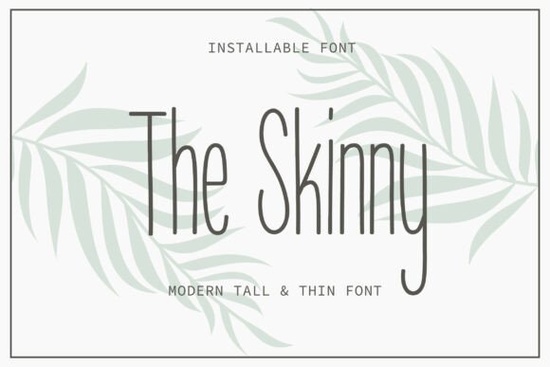
If you've been searching for a typeface that keeps things minimal without feeling cold or sterile, The Skinny Font is worth a closer look. It's a tall, thin typeface with slender monolinear strokes, rounded terminals, and an exaggerated x-height that creates an airy, refined feel. Think boutique branding, lifestyle photography overlays, and chic social media headers the kind of projects where you want elegance without trying too hard.
What makes this thin font stand out from other minimalist typefaces?
Plenty of minimalist fonts feel cold or overly geometric. The Skinny takes a different approach. Its hand-drawn silhouette gives each letter a subtle organic quality, while the consistent stroke weight keeps everything looking clean and uniform. The rounded terminals soften the overall appearance, so text set in this typeface feels approachable rather than clinical.
That combination of slender precision and warm, human character is hard to find. Most ultra-thin fonts sacrifice personality for simplicity. This one manages to keep both making it a solid pick for designers and small business owners who want their brand to look polished but still feel real.
Where does it work best?
This typeface really shines in projects that call for a refined, airy aesthetic. Here are some specific use cases where it fits naturally:
- Boutique branding logos, business cards, and packaging for small businesses wanting a polished, artisanal look
- Social media graphics Instagram headers, Pinterest pins, and story templates with clean, readable headlines
- Print-on-demand products t-shirt designs, mug typography, and poster layouts where tall, thin lettering creates visual impact
- Lifestyle and editorial work wedding invitations, mood boards, and photography overlays
- Product packaging labels, tags, and boxes for artisanal or handmade goods
How do you pair it with other fonts?
One of the best things about a tall, thin display font is how well it plays with others. The Skinny works beautifully as a headline font alongside a simple sans-serif for body text. It also pairs nicely with script fonts when you want a layered, editorial look.
For example, if you're working on a brand mood board, you could combine it with this flowing calligraphy typeface to create contrast between structured elegance and organic movement. Or, if you're designing packaging and want a more relaxed, handwritten feel next to your clean headers, this casual script option makes a natural companion.
Want something with more energy? This bold, expressive display script adds personality to your layout while The Skinny keeps things grounded. And if you like exploring imperfect, textured lettering, the hand-drawn font collection offers plenty of options to mix and match.
What similar fonts should you look at?
If the clean, minimalist vibe of The Skinny appeals to you, there are a few other typefaces worth exploring. Manciety Font brings an elegant script quality that works well for formal and lifestyle branding. Delighton Script Font offers a more relaxed, handwritten vibe great for casual product tags or social media posts.
Phatin Angler Font stands out with its bold, expressive letterforms for projects that need a stronger visual punch. And if you want to explore a whole range of imperfect, textured scripts, the Messy Type Bundle gives you multiple hand-drawn options in one download.
You can also visit the The Skinny Font product page directly to see full previews, test characters, and read more about what's included.
- Define your project is it for branding, POD, social media, or print design?
- Test your pairings preview The Skinny alongside your secondary typeface before committing
- Review the license confirm it covers your intended commercial use
- Consider your audience the airy, elegant style works best for lifestyle, fashion, beauty, and artisan-focused brands
A well-chosen typeface quietly shapes how people experience your brand. The Skinny Font offers a balance of simplicity and warmth the kind of font that makes everything around it look more intentional and carefully considered.